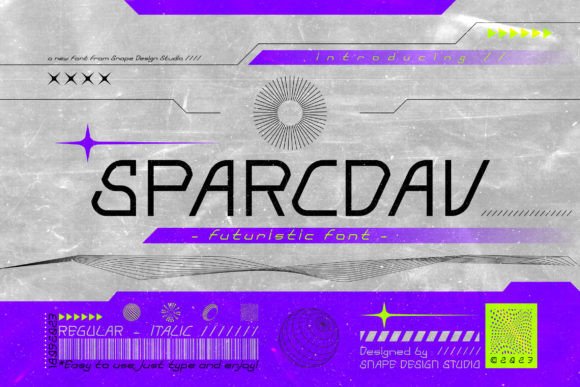
In the digital space, speed reading is an art of efficiency, and every second counts. Discover Sparcdav, an avant-garde sans serif font collection that shatters the boundaries of speed reading, invigorating your content with lightning-fast legibility.
Visualizing Information at the Speed of Light:
In an era where information flows like a torrential river, the ability to process content swiftly is a formidable asset. Our fonts' meticulously crafted letterforms ensure effortless comprehension, allowing your audience to navigate your textual landscapes with remarkable speed and precision.
Next-Generation Aesthetics:
Sparcdav is not just about speed; it's an aesthetic tour de force that propels design into the future. Its sleek, geometric contours radiate a sense of modernism, imbuing your projects with an innovative and captivating aura. Elevate your branding with the power of futuristic typography.
A Symphony of Versatility:
The Sparcdav font collection transcends the confines of genre, seamlessly adapting to a diverse spectrum of creative endeavors. Sci-fi visions, tech branding, futuristic interfaces, and beyond—our fonts perform like chameleons, harmonizing flawlessly with your unique artistic vision.
Effortless Customization:
Intuitive customization options make Sparcdav an absolute delight for designers of all experience levels. Fine-tune kerning, letter spacing, and font weight with ease, tailoring the typography to your precise specifications. Embark on a journey of boundless creativity, leaving an indelible mark on your audience.